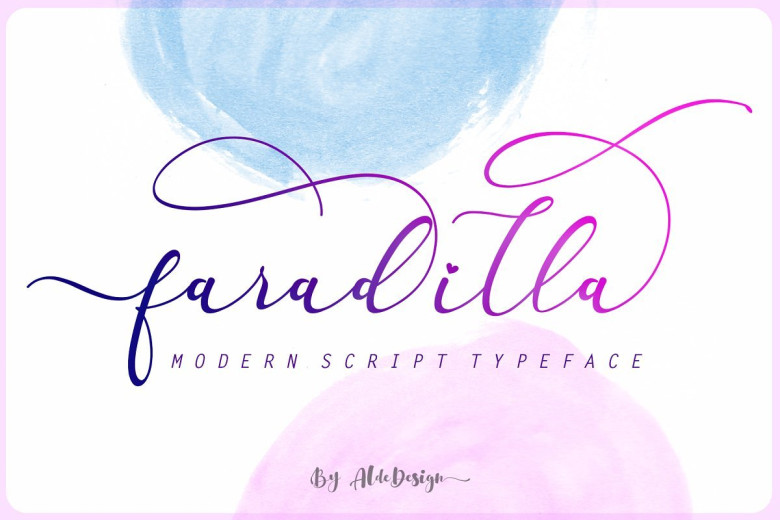
Faradilla Script Font
Hi world!! a new fresh handmade calligraphy font. Perfect addition to the professional designers font. Introducing Faradilla Beautiful Script Font. Its designed and shared by Aldedesign. Faradilla – Beautiful Script Font is a stylish handwritten script with touch of love. This font that features a varying baseline, smooth line, modern and with a depth love. Faradilla comes with a touch of love and modernity for your designs or branding, it can be used for various purposes such as headings, wedding, invitation, signature, logos, branding, t-shirt, letterhead, signage, lable, news, posters, badges etc.